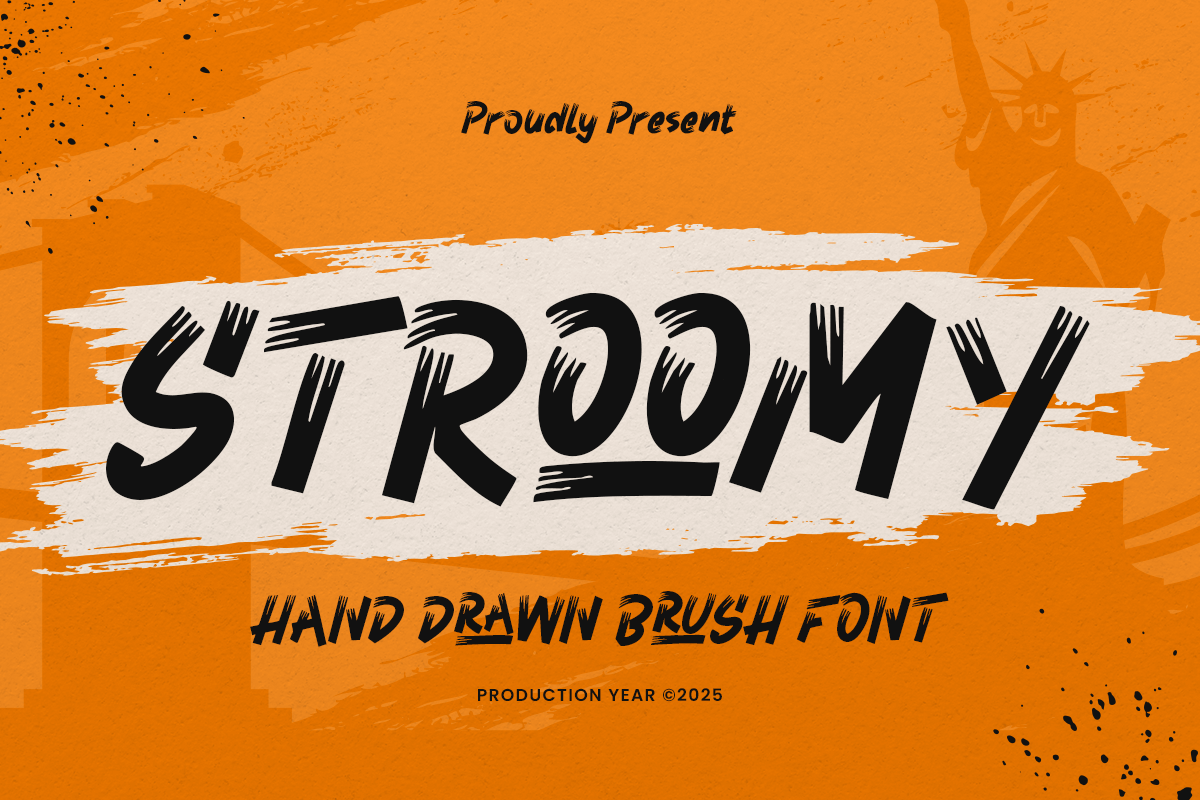
Stroomy
-Handdrawn Brush FontStroomy - Handdrawn Brush Font
STROOMY is a handdrawn brush font designed to add a natural, expressive, and artistic touch to your projects. Ideal for logos, posters, branding, social media graphics, and creative designs, it features dynamic hand-painted strokes that enhance your visuals.
With flowing brushletter forms and organic curves, STROOMY brings energy and personality to both digital and print designs, perfect for designers seeking an authentic hand-crafted aesthetic.
STROOMY – Handdrawn Brush Font Features
Bold and artistic handdrawn brush characters
Perfect for logos, posters, branding, and creative projects
OpenType features for extra versatility